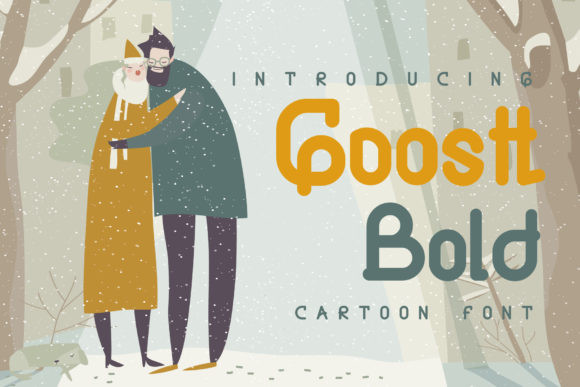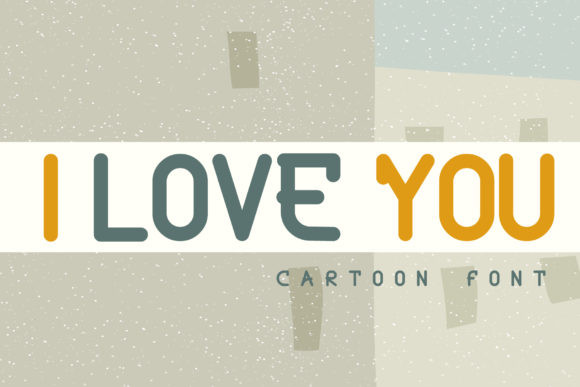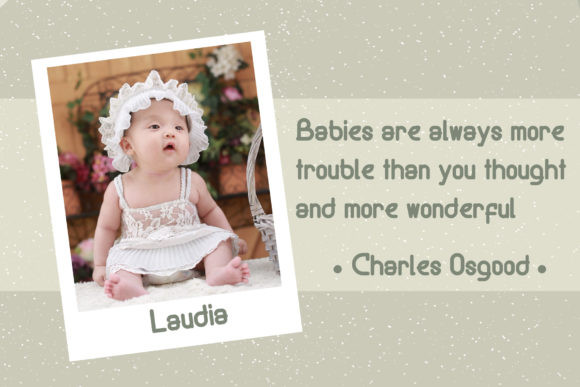
Goostt Font
Goostt is a sweet, soft cartoon-style display font. The playfully rounded characters make it the perfect font for creating stunning kids’or cartoon art. Fall in love with its authentic feel and use it to create fun comic art, eye-catching social media posts, and cute greeting cards.